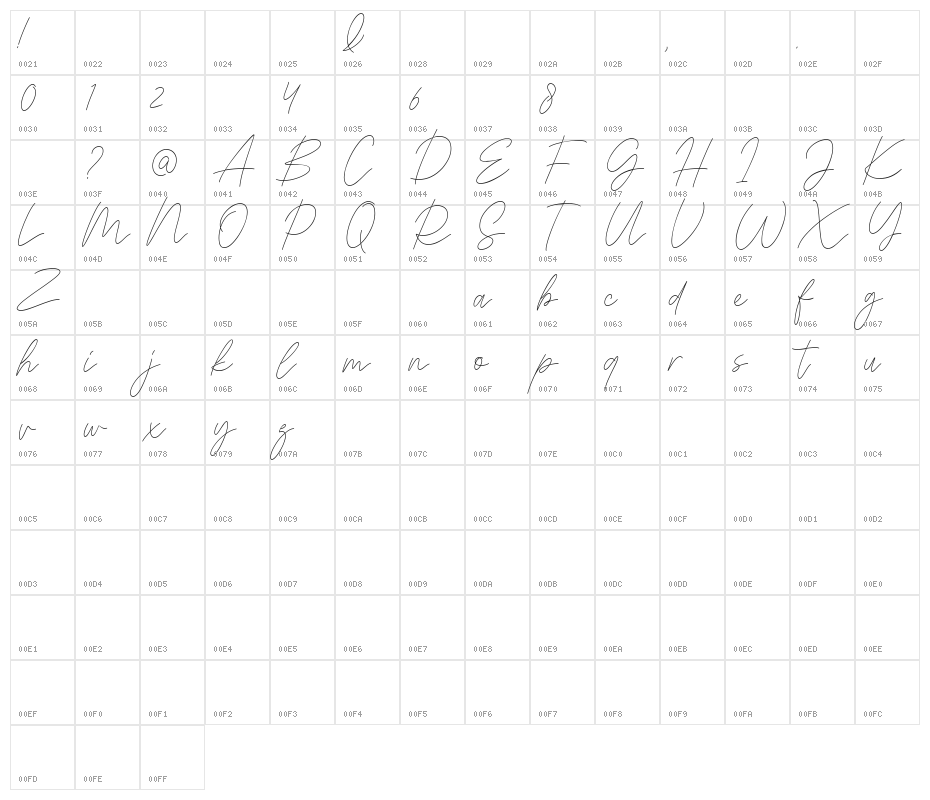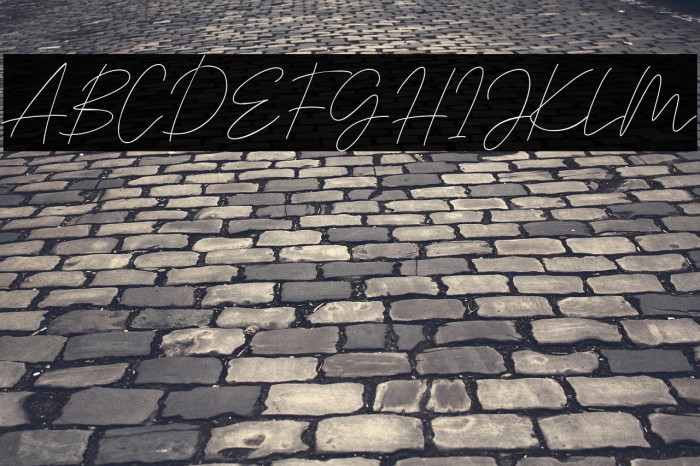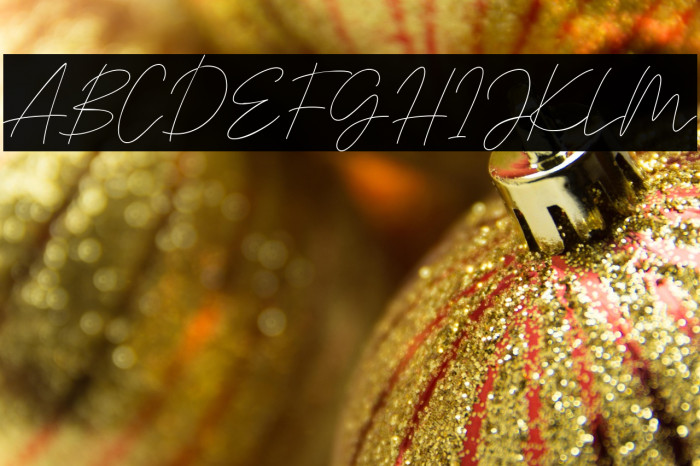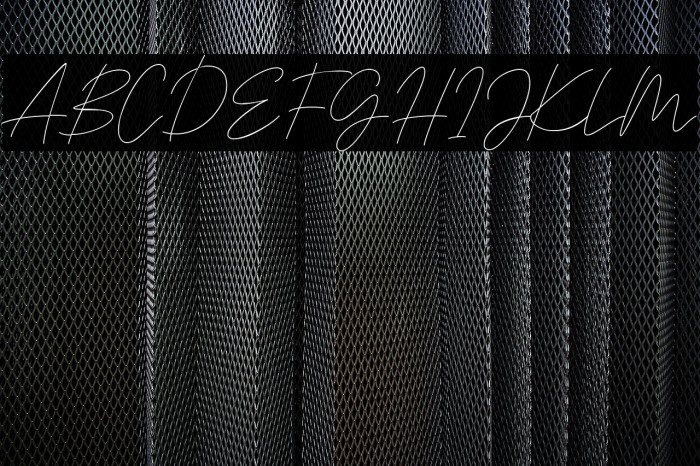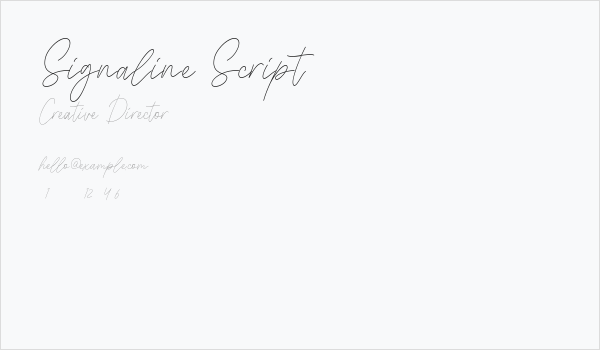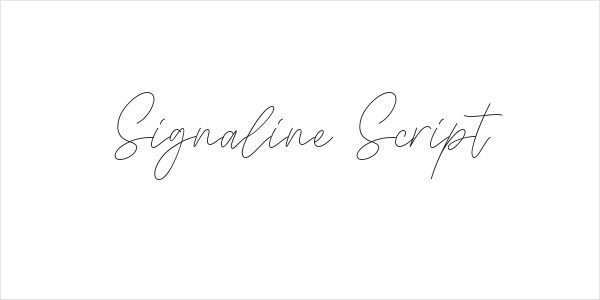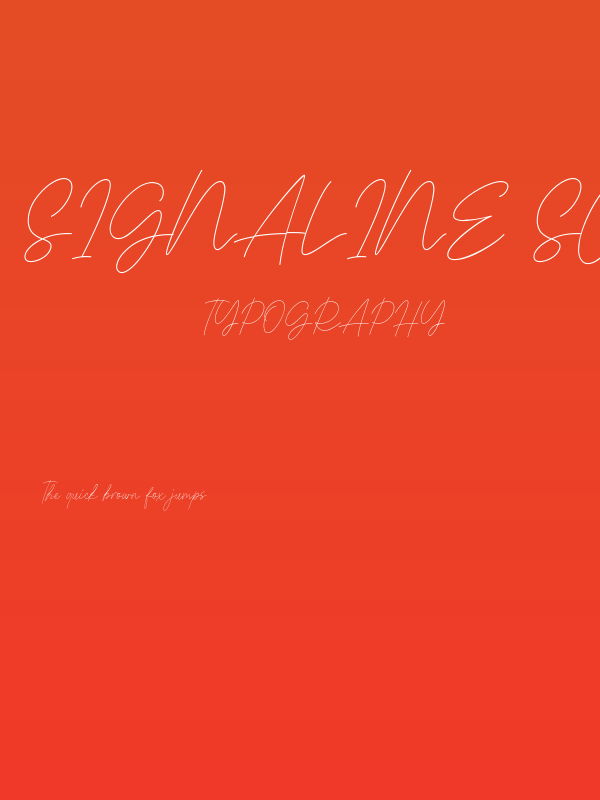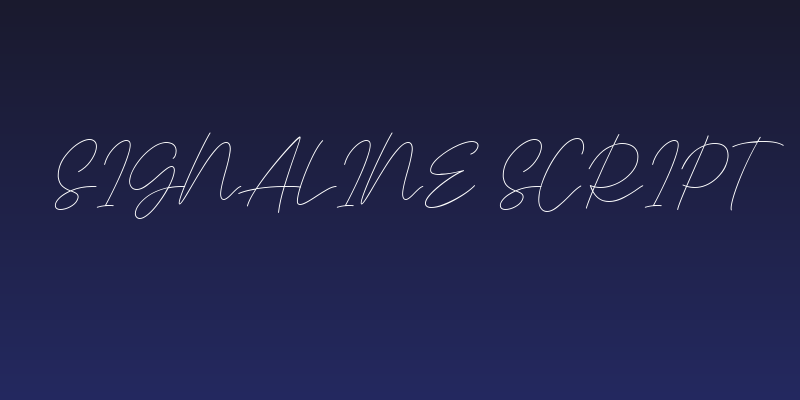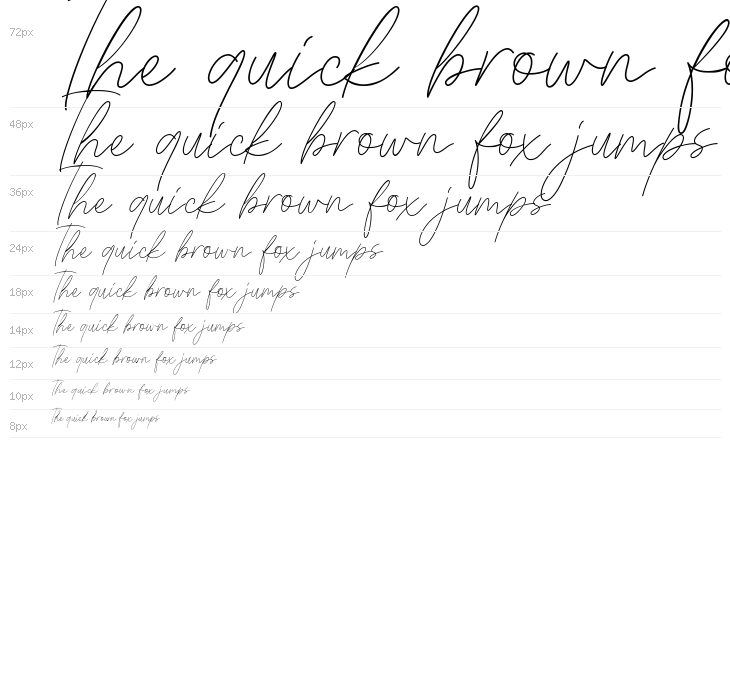
Signaline Script Font
Signaline Script Description
This font exhibits a fluid and elegant script style, characterized by its smooth, flowing lines and cursive letterforms. The uppercase letters are tall and slender, while the lowercase letters maintain a consistent, graceful curve, enhancing the overall aesthetic. The numbers and special characters are designed to complement the script's delicate nature, adding a touch of sophistication. The font's thin strokes and connected letters give it a handwritten appearance, making it ideal for projects that require a personal or artistic touch.
| Overall Style | Elegant, Handwritten |
| Use Case | Logos, Invitations, Artistic projects |
| Proposed Projects | Ideal for wedding invitations, greeting cards, personal branding, and artistic projects requiring a handwritten touch. |